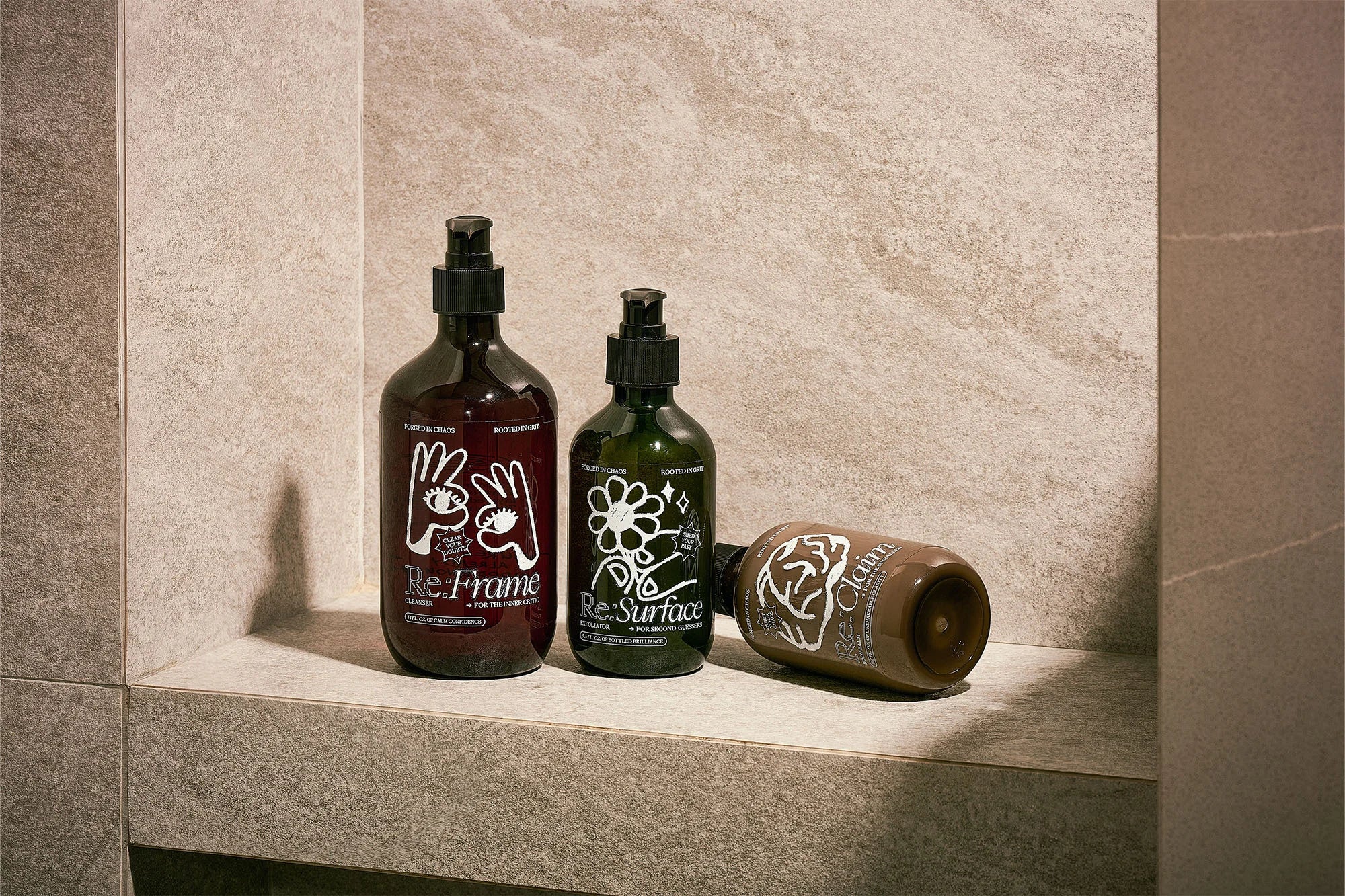
Burnout among creative professionals has reached epidemic proportions, with 70% experiencing it according to the Mentally Healthy 2024 survey.
House of Adjaycent recognised this crisis as an opportunity to redefine how design can address emotional wellbeing through Re:Label, a conceptual skincare line that transforms routine self-care into moments of psychological repair. The project emerged from personal experience rather than market research. “The team, all creatives ourselves, has experienced burnout at some point in our careers,” explains Jay Liu, Founder, Art Director & Designer at House of Adjaycent, who worked on the project alongside Claire Chang and Darryl Cheong. “During a casual gathering, we found ourselves discussing self-care rituals that had helped us decompress, especially in the wake of the pandemic. Beyond the usual candles and room sprays, the conversation turned more tactile.”
Each product in the trilogy corresponds to distinct psychological challenges faced during creative burnout. Re:Frame supports reframing harsh self-criticism, Re:Surface aids quiet re-emergence from uncertainty, and Re:Claim helps restore centre during overwhelming moments. The names deliberately guide users through a compassionate journey toward healing and empowerment. House of Adjaycent transformed these emotional states into tangible design elements that invite pause and reflection. Each ingredient list reads like poetry, offering emotional cues such as ‘a splash of clarity’ or ‘a full pump of quiet strength,’ turning cleansing routines into mindful self-check-ins. Hand-drawn illustrations deepen this emotional layer, with subtle motifs woven into the packaging as visual cues – a throne, a doorway or a shooting star that gently speak to the user.
The typographic approach reflects the emotional duality many creatives navigate. “Pangram’s PP Eiko and PP Mondwest anchor the identity,” Liu notes. “Selected for their editorial sensibilities, the two typefaces pair as a typographic tension between serif and pixelated, soft and structured, mirroring the emotional duality many creatives navigate.”.
House of Adjaycent made a conscious decision to avoid AI-generated visuals entirely. “It reinforces the packaging’s commitment to authenticity and the rawness of human creativity,” Liu explains. “In a scene where generative AI continuously floods the market with predictable content, consciously choosing to avoid it signals a respect for the craft, time and intention in this exercise.”
The colour palette underwent a dramatic transformation during development. Originally featuring dusty orange, olive green and soft lilac, the design shifted to pure white UV ink printed on transparent stickers when the translucent bottles arrived. “Each label would inherit the hue of the bottle beneath it, shifting subtly with every blend,” Liu reveals. “No two bottles ever look or feel the same. The print technique also introduced a raw, grainy texture that can be felt when holding it.”
This approach deliberately departs from the polished aesthetic of luxury wellness brands. The monochromatic scheme and tactile textures symbolise the beauty of imperfection, reinforcing that being human means being in progress. The identity strips away gloss and replaces it with clarity and acceptance, communicating that wholeness doesn't require meeting external ideals. Re:Label invites users to become authors of their own healing process. The initial bottles come pre-mixed for immediate use, but the true ritual begins when they’re empty. Users can refill and remix their own formulations, transforming skincare into a personal act of reinvention. Each element reinforces the message that creativity and vulnerability are strengths, not weaknesses to overcome.